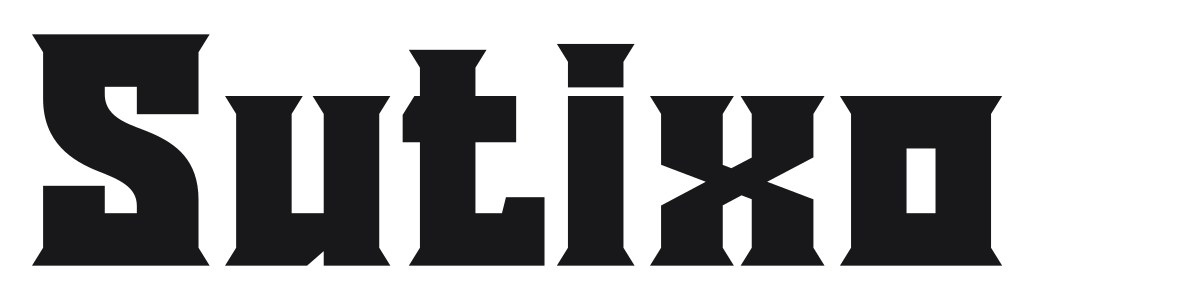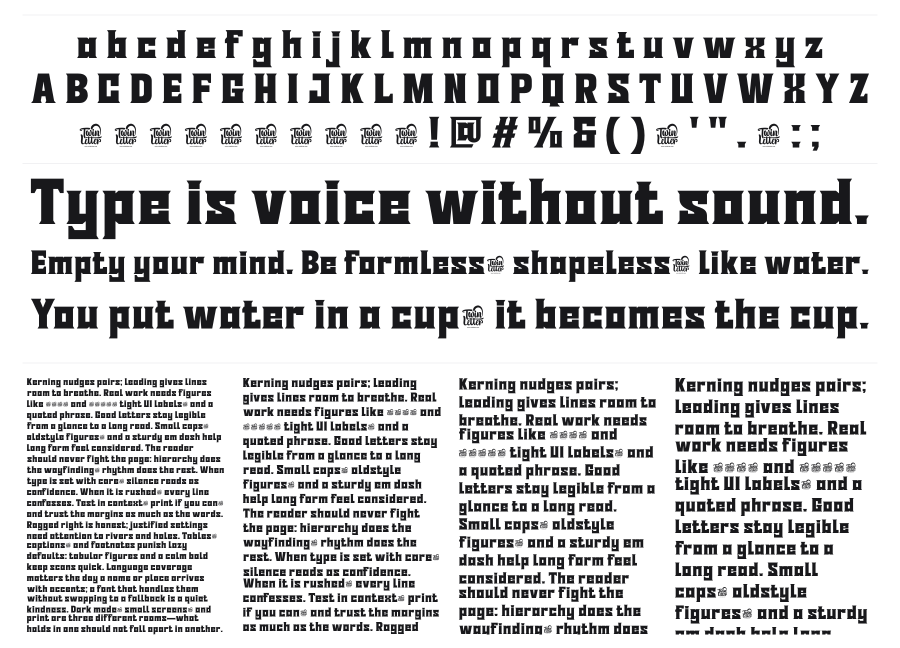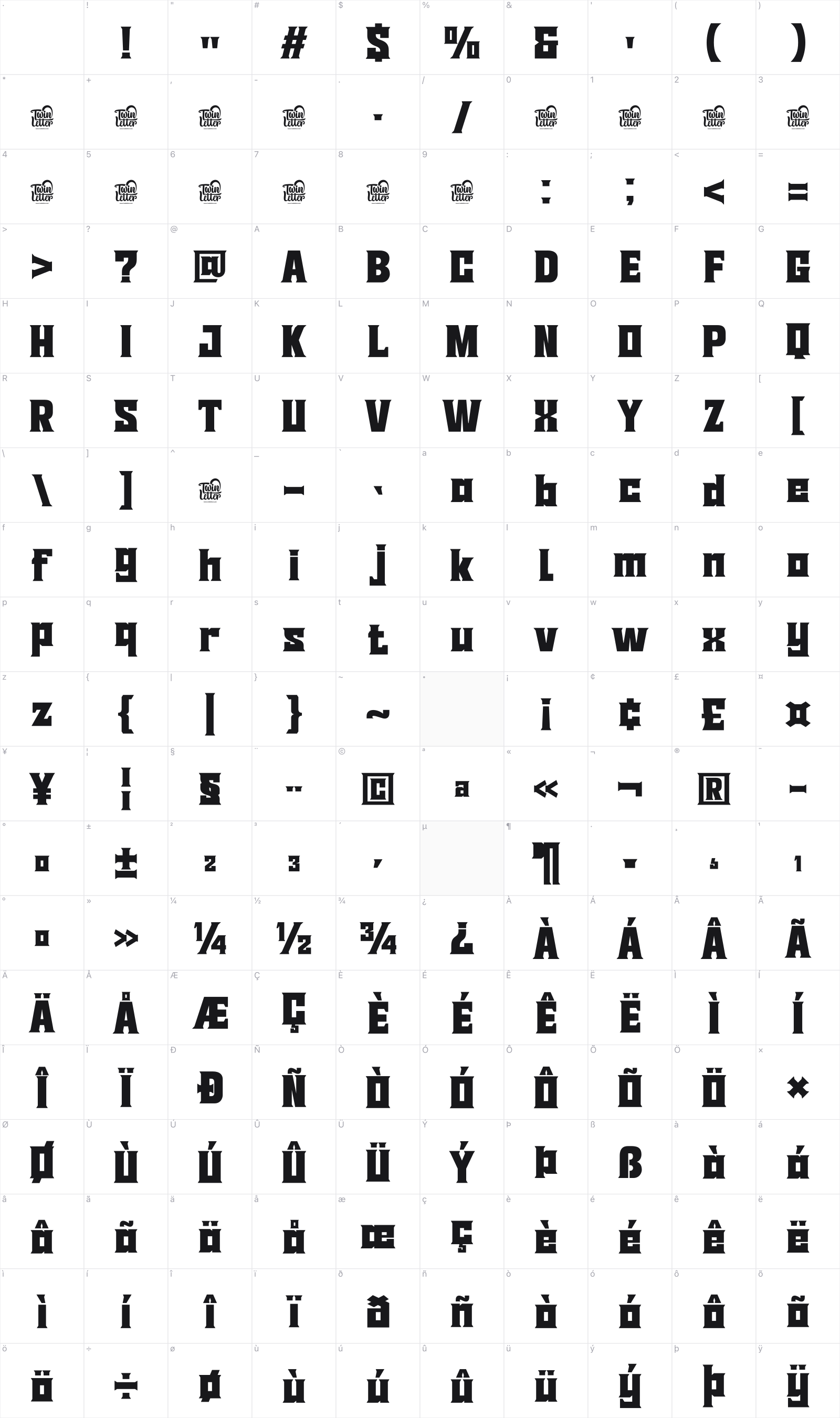
Sutixo
Sutixo is a heavy collegiate-style display face built on angular, notched geometry with thick slab serifs and zero stroke contrast. The tight construction and chunky stems give it a hard-hitting varsity feel that pulls from vintage athletic lettering. It thrives at large sizes on posters, jerseys, and branding that needs raw visual weight.